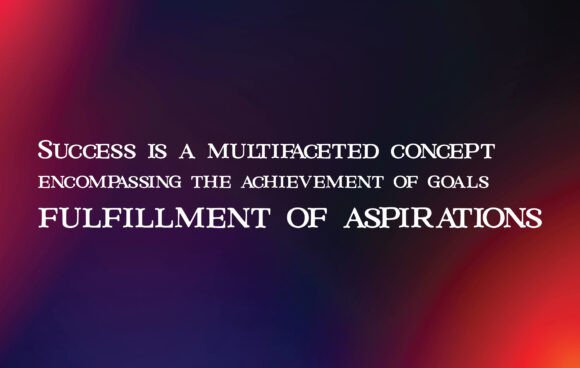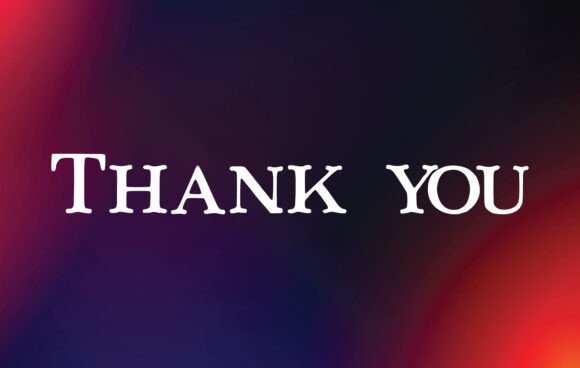
Dante Font: Elevate Your Creative Projects with Elegance and Sophistication
In the world of typography, fonts play a crucial role in bringing creative ideas to life. Among the numerous fonts available, one that stands out for its beauty and versatility is the Dante Font. This lovely and beautiful font has the potential to take your creative projects to new heights, making it an ideal choice for designers and crafters looking to add a touch of elegance and sophistication to their work.
What Makes Dante Font So Special?
Dante Font is a stunning typeface that boasts a unique blend of classic and modern elements. Its elegant lines, precise curves, and harmonious proportions make it perfect for creating eye-catching logos, branding materials, and quotes. Whether you’re working on a personal project or a client’s, Dante Font is sure to impress with its refined and sophisticated look.
The Benefits of Using Dante Font
So, why choose Dante Font for your creative projects? Here are just a few benefits that make it an excellent choice:
- Versatility: Dante Font can be used for a wide range of projects, from logos and branding to quotes and social media graphics.
- Elegance: The font’s classic and sophisticated design adds a touch of elegance to any project.
- Readability: Dante Font is highly readable, even at small sizes, making it perfect for body text and captions.
- Uniqueness: With its distinctive features and proportions, Dante Font helps your projects stand out from the crowd.
How to Use Dante Font Effectively
To get the most out of Dante Font, here are some tips for using it effectively:
- Pair it with complementary fonts: Combine Dante Font with other fonts that complement its style and proportions to create visual interest and hierarchy.
- Experiment with font sizes and weights: Play with different font sizes and weights to add emphasis and create a clear visual hierarchy.
- Use it for headlines and titles: Dante Font is perfect for headlines and titles, where its elegant and sophisticated design can shine.
Design and Craft Inspiration with Dante Font
Whether you’re a designer, crafter, or DIY enthusiast, Dante Font can inspire your creative projects and help you achieve your goals. Here are some ideas to get you started:
- Logo design: Use Dante Font to create stunning logos that reflect your brand’s personality and values.
- Social media graphics: Create eye-catching social media graphics, such as quotes, posters, and infographics, with Dante Font.
- Branding materials: Use Dante Font for business cards, brochures, and other branding materials to create a cohesive and professional look.
- DIY projects: Add a touch of elegance to your DIY projects, such as handmade cards, invitations, and gift tags, with Dante Font.
In conclusion, Dante Font is a beautiful and versatile typeface that can elevate your creative projects to new heights. With its elegant design, precise curves, and harmonious proportions, it’s perfect for creating eye-catching logos, branding materials, and quotes. Whether you’re a designer, crafter, or DIY enthusiast, Dante Font is an excellent choice for adding a touch of sophistication and elegance to your work.